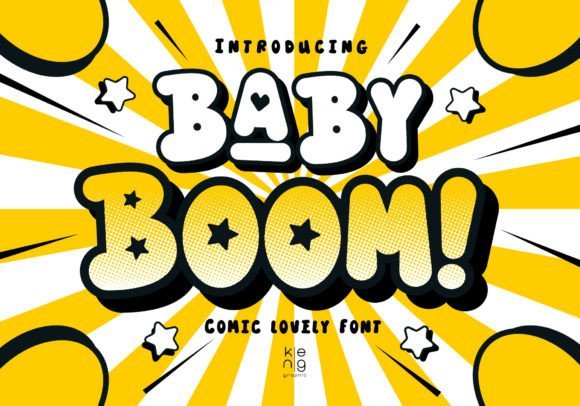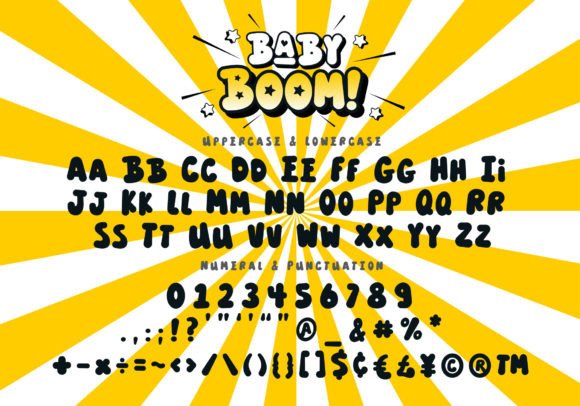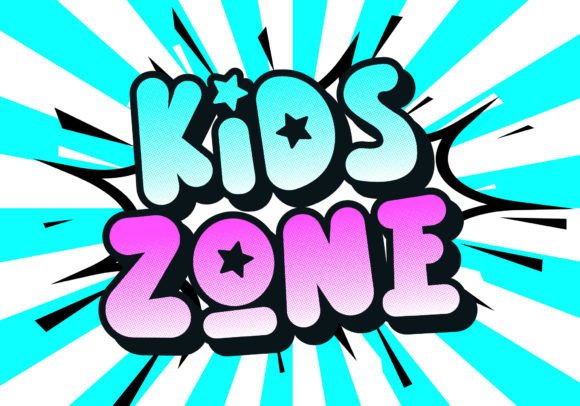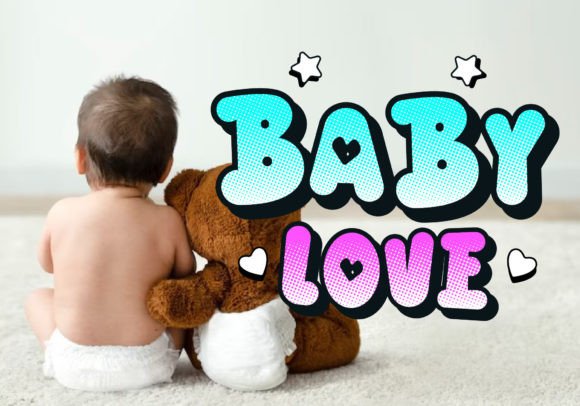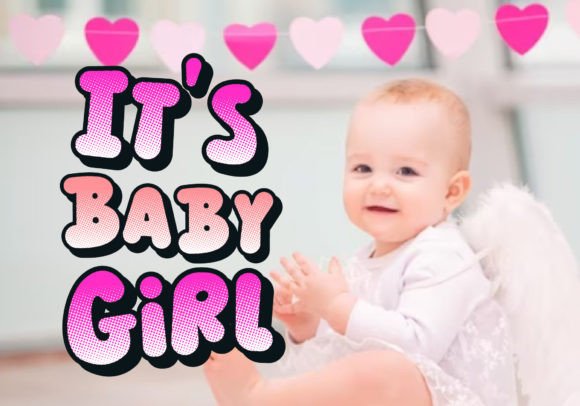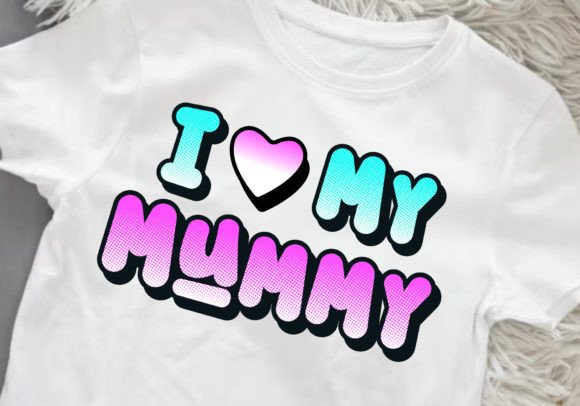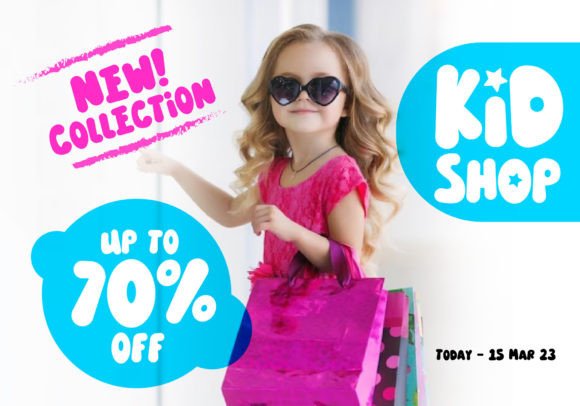
The Birth of a Bold New Font: Baby Boom Font
Have you ever sat in front of a blank canvas, waiting for the perfect spark of inspiration to strike? For designers, those moments are what make the creative process so exhilarating. And for those who’ve been searching for the perfect font to capture the essence of youthfulness and courage, we’re excited to introduce Baby Boom Font – a display font that’s sure to leave a lasting impression.
Baby Boom Font is designed to make a statement, with its comic lovely style and great punch. Whether you’re working on a comic book, online game, or eye-catching social media post, this font is sure to grab attention and make your content instantly recognizable. For designers, Baby Boom Font offers a valuable tool to convey a sense of playfulness and adventure, making it a must-have in any design arsenal.
Baby Boom Font Key Features
- Size: The font family includes a range of weights and styles, from Thin to Extra Bold, providing flexibility for various design applications.
- Unique Characteristics: The font features a distinctive, hand-drawn aesthetic with subtle irregularities and texture, giving it a unique and human touch.
Baby Boom Font Review
I’ve been experimenting with the Baby Boom Font, and I must say it’s a unique addition to any design project. ✨ The font’s retro vibe is perfect for creating a nostalgic atmosphere, especially when used for headings or titles.
The Baby Boom Font features a wide range of characters, including Latin, Greek, and Cyrillic scripts, making it a versatile option for multilingual projects. ✨ The font’s bold and playful style also makes it an excellent choice for children’s books, advertisements, or any other project that requires a fun and energetic tone.
However, there are some limitations to consider: ⚠️ The font may not be the best choice for body text due to its playful and informal style, which can be distracting for longer passages of text. Additionally, the font’s weight and contrast may not be suitable for all screen resolutions, potentially leading to readability issues.
- What works well: Unique retro vibe, versatile character set, and playful style.
- Limitations: May not be suitable for body text, potential readability issues on certain screens.
Overall, the Baby Boom Font is a great addition to any design project that requires a fun and energetic tone. While it may not be the best choice for all projects, it’s definitely worth considering for the right application.
Getting the Most Out of Baby Boom Font
To get the most out of the Baby Boom Font, use it for:
- Creative headings and titles
- Quirky and playful designs
- Child-friendly materials and branding
The Baby Boom Font is commonly used for:
- Children’s book covers and illustrations
- Fun and quirky branding for kids’ businesses